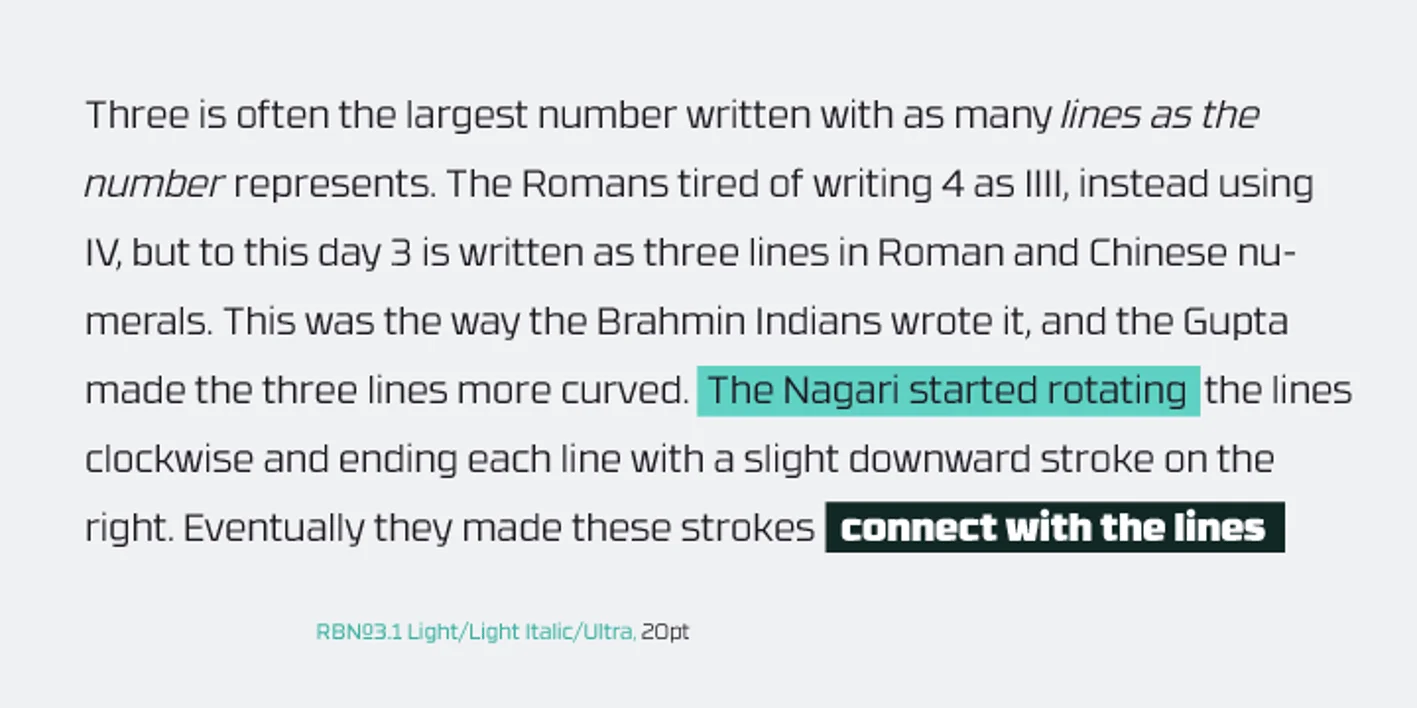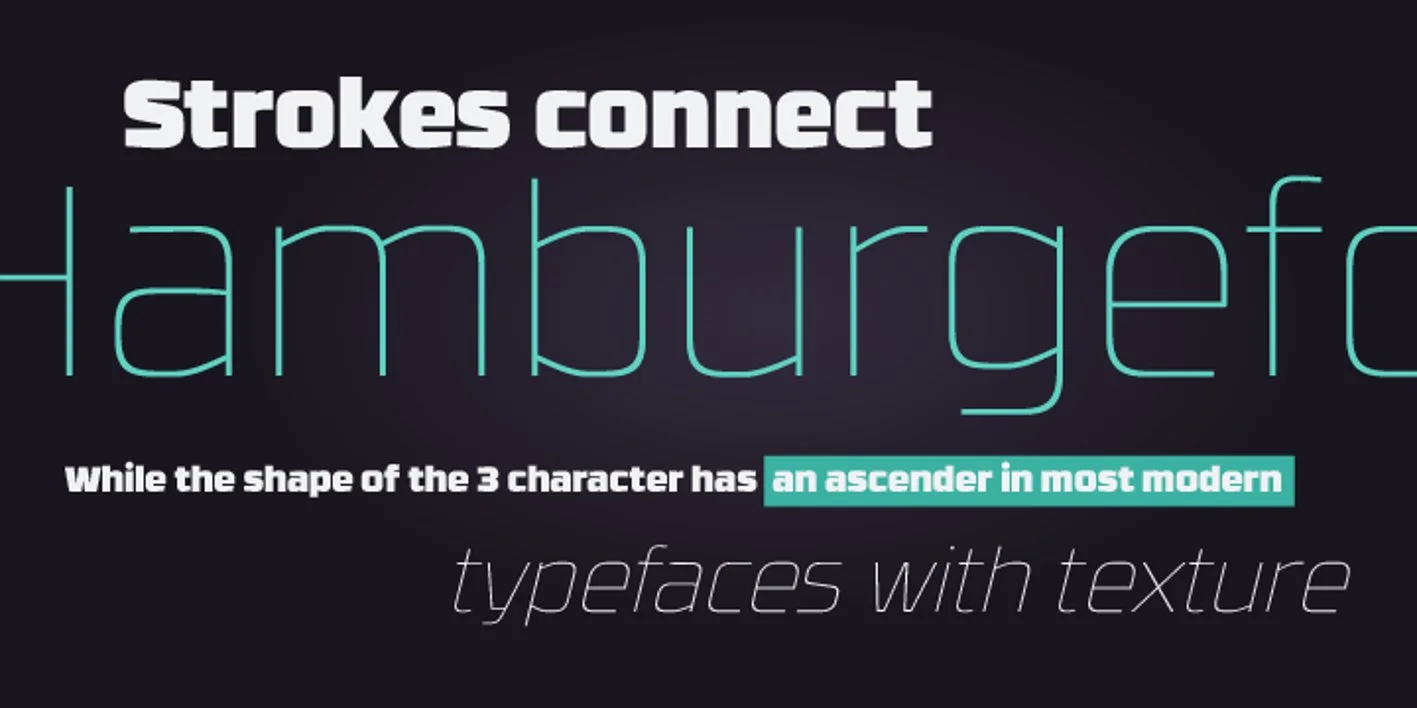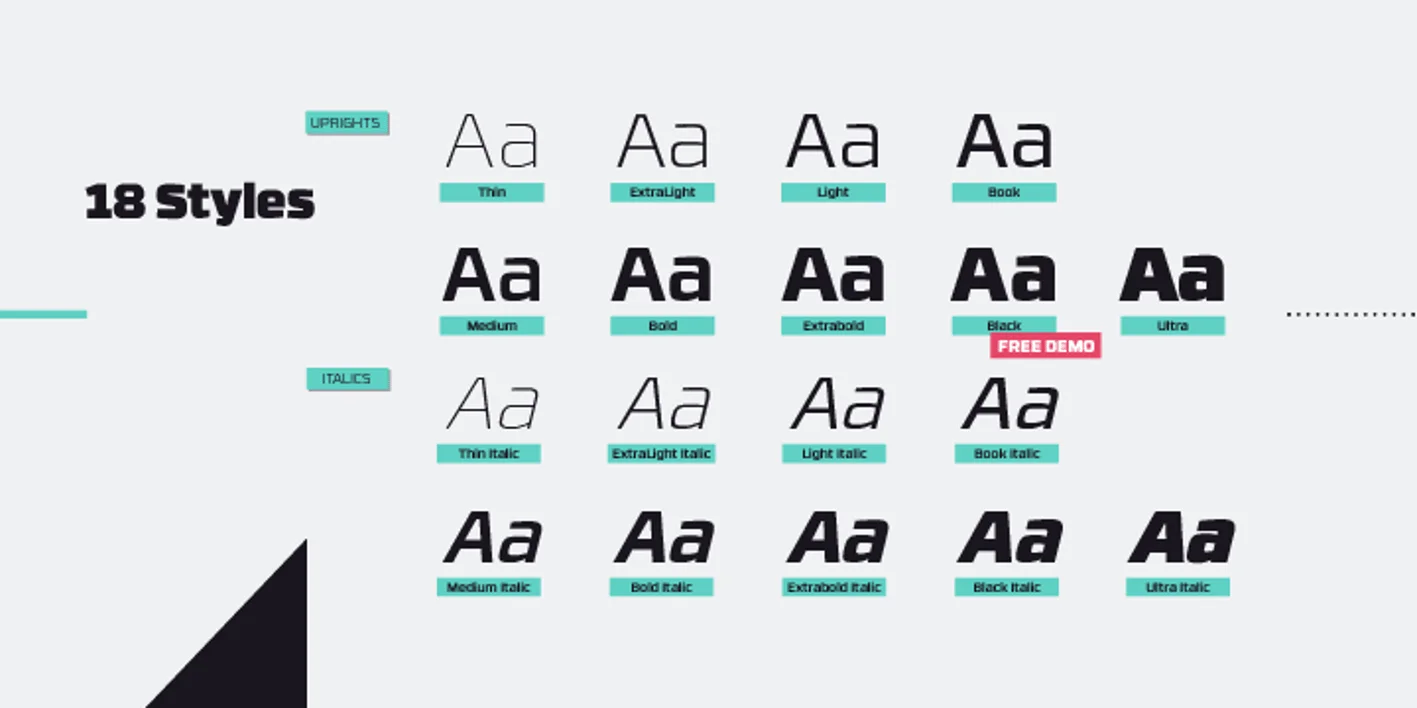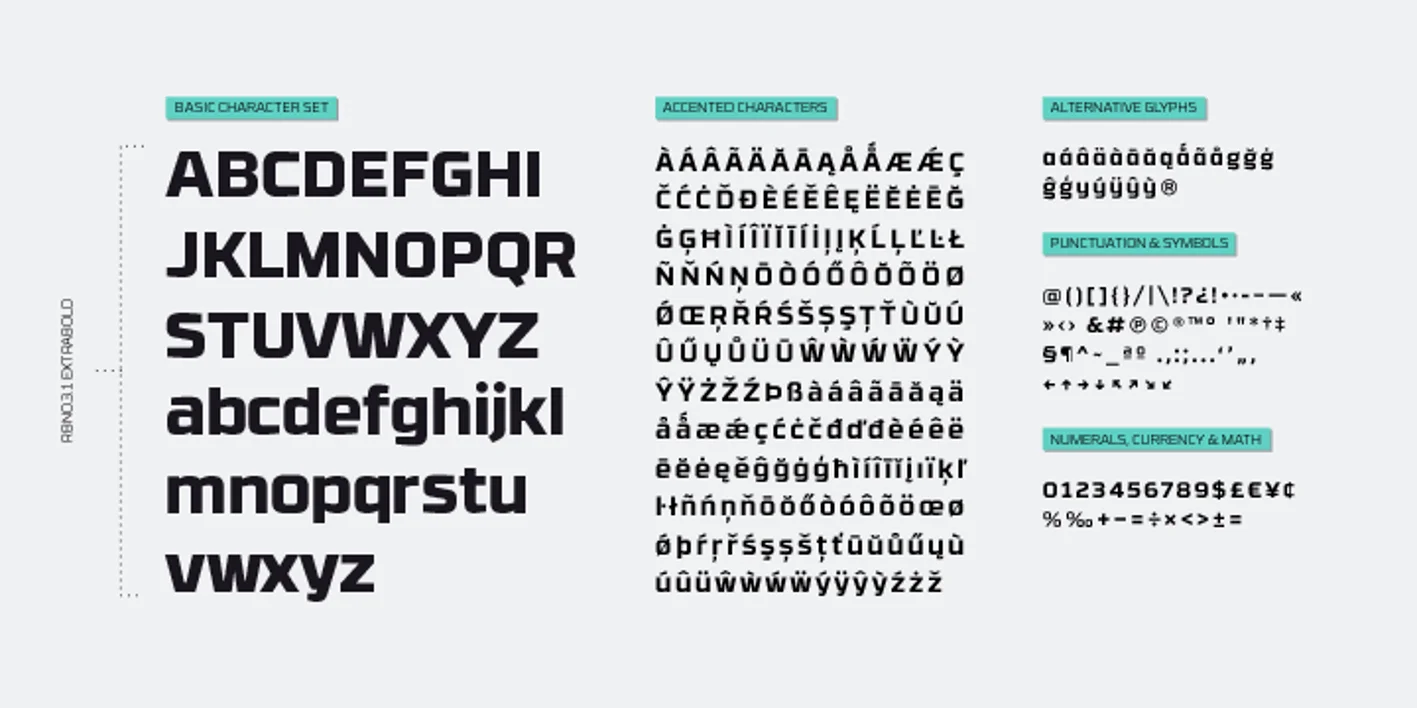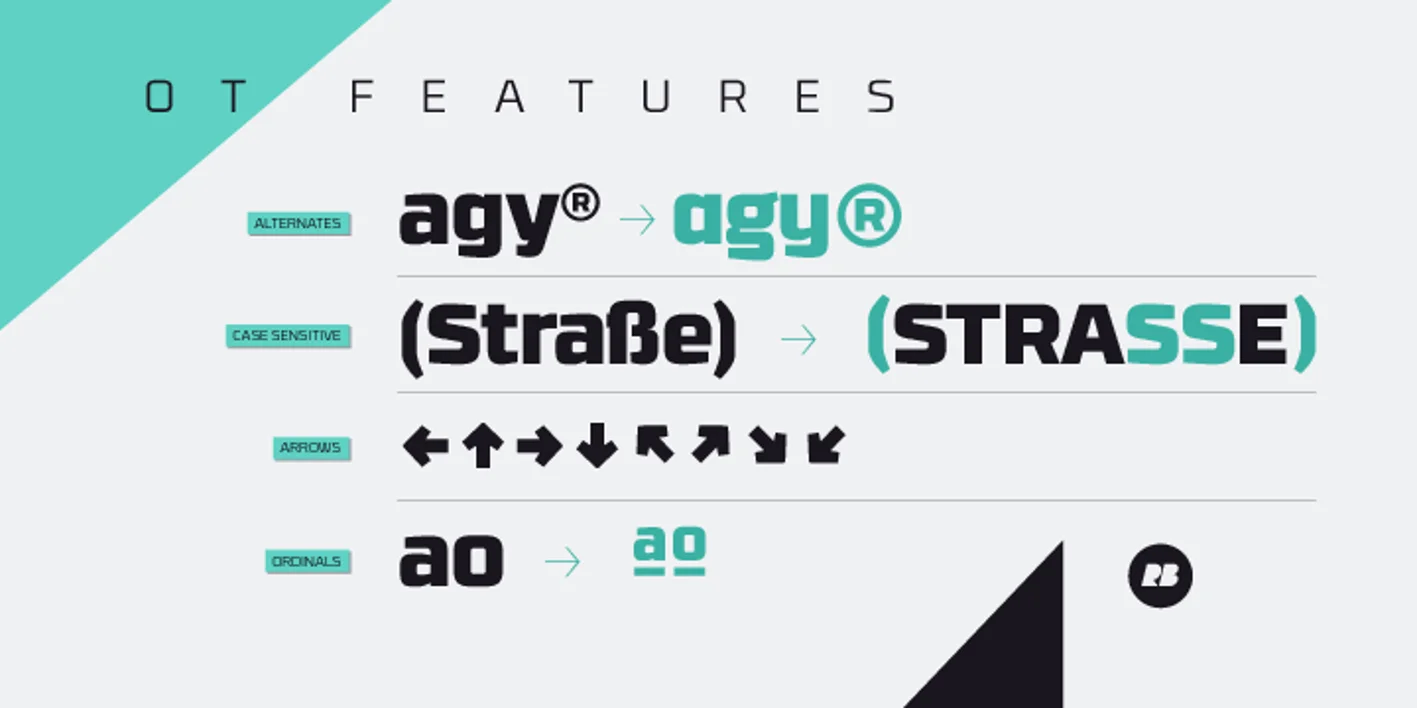
RBNo3.1 Font
When a design brief calls for both a confident voice that adapts to diverse briefs and immediate visual impact, type choices matter — RBNo3.1 answers that brief. The typeface brings a versatile sensibility to a broad range of creative disciplines, with refined proportions and careful stroke modulation that holds up whether the work is print-first or screen-first.
In practice, RBNo3.1 proves particularly effective for environmental graphics, packaging design, advertising campaigns, logo design, social media graphics. Designers reaching for it find that the type decisions feel resolved rather than laboured — a useful quality when client timelines are tight.
The proportions balance x-height, cap height, and ascender length to produce a face that reads confidently at body copy sizes without losing presence at display scale. Sidebearings were derived from visual rhythm testing rather than mathematical calculation alone.
The range of applications extends to web design, signage systems, editorial layouts, annual reports. That breadth is deliberate: the proportions and spacing were stress-tested across a wide range of mock briefs before the typeface was finalised.
Brand strategists building visual languages find RBNo3.1 a reliable choice for projects that demand both personality and restraint. The design avoids the self-conscious quirkiness that dates quickly, settling instead for considered distinctiveness that holds up over time.